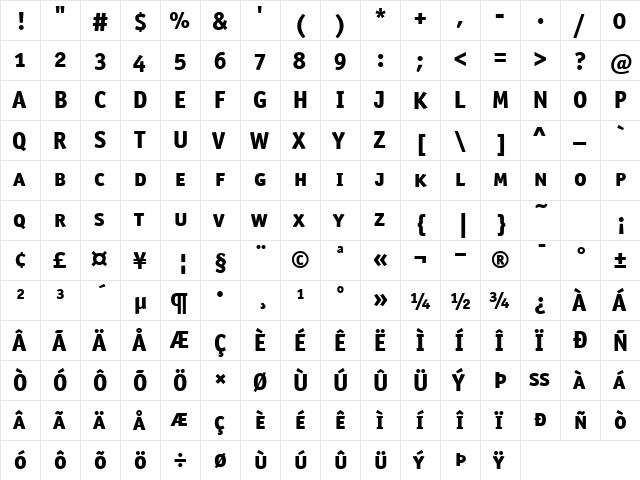
OfficinaSanMdSCITCTT ExtraBold Font Preview
OfficinaSanMdSCITCTT ExtraBold
OfficinaSanMdSCITCTT ExtraBold Font Details
| Style | ExtraBold |
| Foundry | International Typeface Corporation |
| Designer | Erik Spiekermann / Ole Schaefer |
Design Context for OfficinaSanMdSCITCTT Typeface
OfficinaSanMdSCITCTT takes a measured approach to typography — its balanced proportions and neutral character make it a reliable workhorse for both digital and print work. Its bold stroke weight gives it real presence on the page.